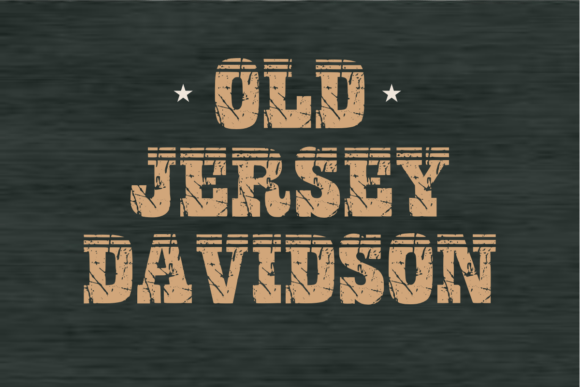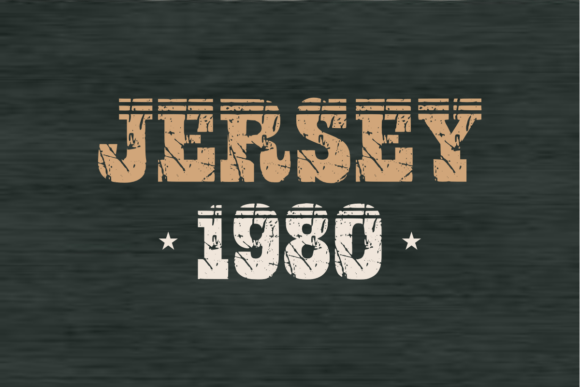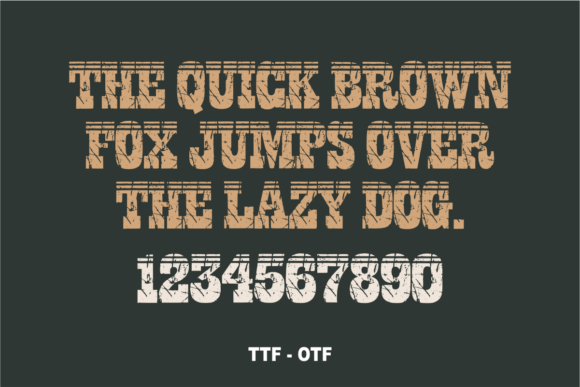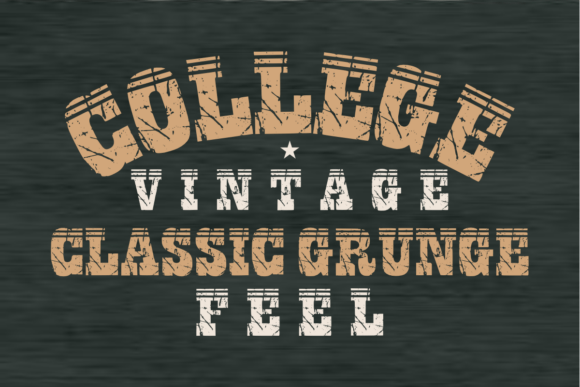
Show Your School Spirit with College Vintage Font
Are you looking for a font that captures the essence of college life and varsity sports? Look no further than the College Vintage font, a classic collegiate slab-serif with an authentic worn-in feel. This font is perfect for designers and crafters who want to create university-themed apparel, sports team logos, and alumni event invitations that evoke a sense of nostalgia and school spirit.
What is College Vintage Font?
The College Vintage font is a unique typeface that features the iconic “arched” style and distressed texture of a vintage sweatshirt. Its slab-serif design gives it a classic, timeless look that’s reminiscent of old-school college apparel. The font’s worn-in feel adds a touch of authenticity, making it perfect for designs that require a vintage or retro aesthetic.
Creative Usage and Decoration
The College Vintage font is incredibly versatile, and its creative usage and decoration possibilities are endless. Here are a few ideas to get you started:
Varsity Style
Why not arch the text to 180° to mimic the classic chest-print on college hoodies? This is a great way to create a varsity-style design that’s sure to turn heads. Simply use the font’s built-in arcing feature or manually adjust the text to achieve the desired effect.
Pairing
For a modern “Varsity Sportswear” look, try pairing the College Vintage font with a thin, clean sans-serif like Smart Circle. This contrast between the bold, distressed font and the sleek, modern sans-serif creates a visually appealing combination that’s perfect for designs that require a bit of sophistication.
Photography
Use the College Vintage font as an overlay on grainy, film-style photos of stadiums or campus landscapes for a unique and captivating design. This is a great way to add a touch of nostalgia and atmosphere to your photos, and the font’s distressed texture will blend seamlessly with the grainy image.
Adding Horizontal “Racing Stripes”
To lean into the athletic aesthetic, consider adding horizontal “racing stripes” above and below the text. This is a simple yet effective way to enhance the font’s sports-themed look and create a design that’s sure to stand out. You can use a bold, contrasting color to create a striking effect or match the stripes to the font’s color for a more subtle look.
The College Vintage font is a must-have for designers and crafters who want to create unique and eye-catching university-themed designs. Whether you’re working on a project for a client or creating something for your own personal use, this font is sure to inspire your creativity and help you achieve your design goals.
Here are a few tips and tricks to help you get the most out of the College Vintage font:
• Experiment with different colors and textures to enhance the font’s distressed look and create a unique design.
• Use the font’s built-in features, such as the arcing and bold styles, to add visual interest to your design.
• Don’t be afraid to get creative and try out new and unusual design ideas – the College Vintage font is a versatile tool that can be used in a variety of innovative ways.
The College Vintage font is a classic collegiate slab-serif that’s perfect for designers and crafters who want to create unique and eye-catching university-themed designs. With its authentic worn-in feel, iconic “arched” style, and distressed texture, this font is sure to evoke a sense of nostalgia and school spirit in your designs. So why not give it a try and see what creative possibilities you can come up with?